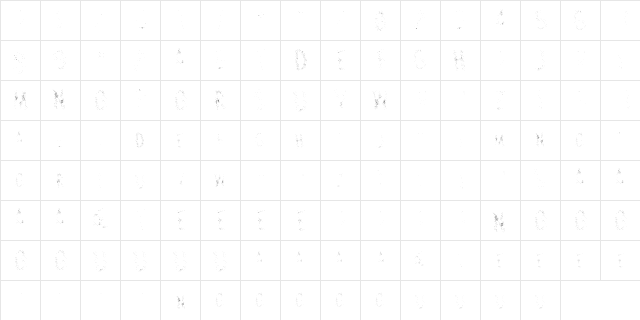
Carbon Ultra
Design Context for Carbon Typeface
Carbon is a composed and adaptable typeface that performs quietly and consistently across a wide range of design contexts.